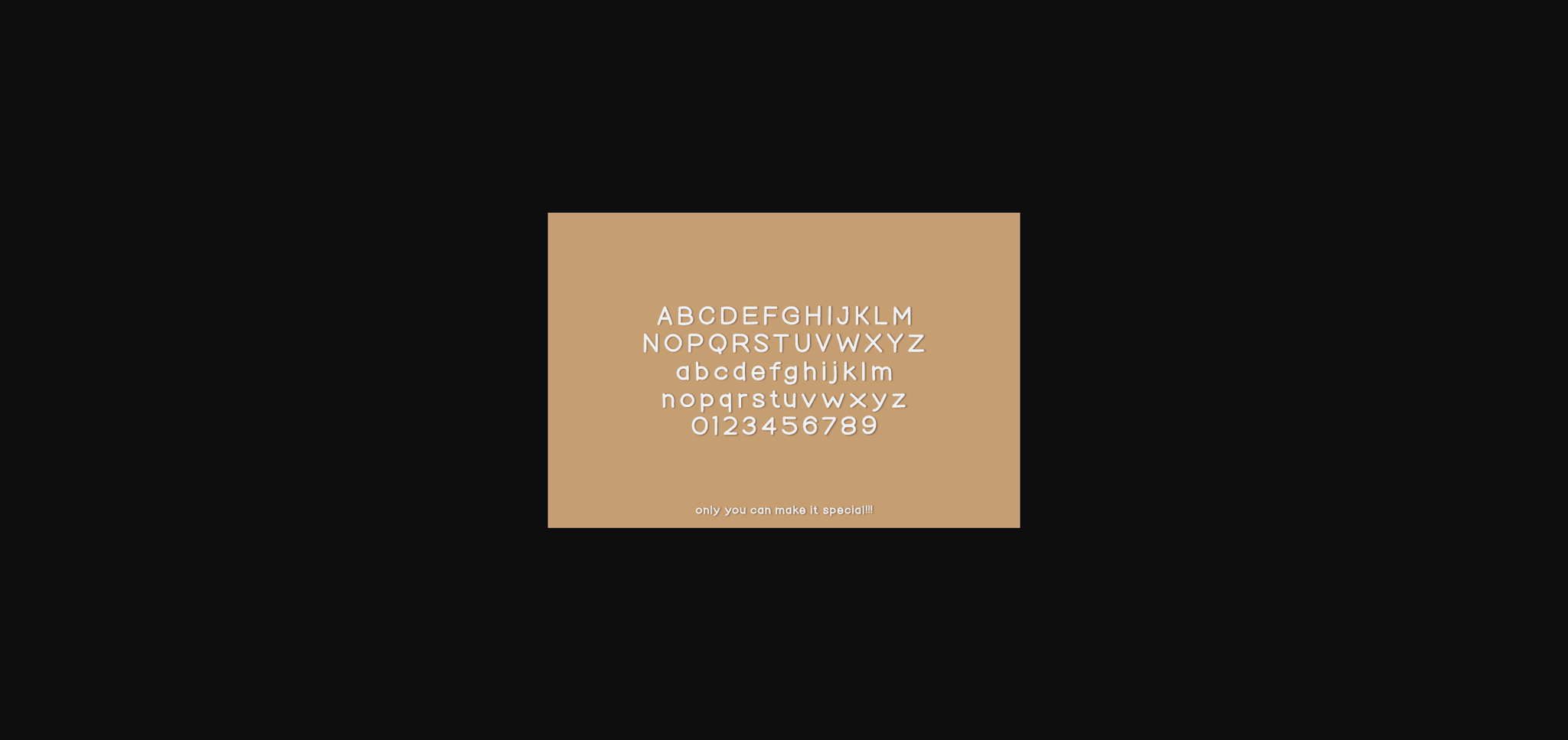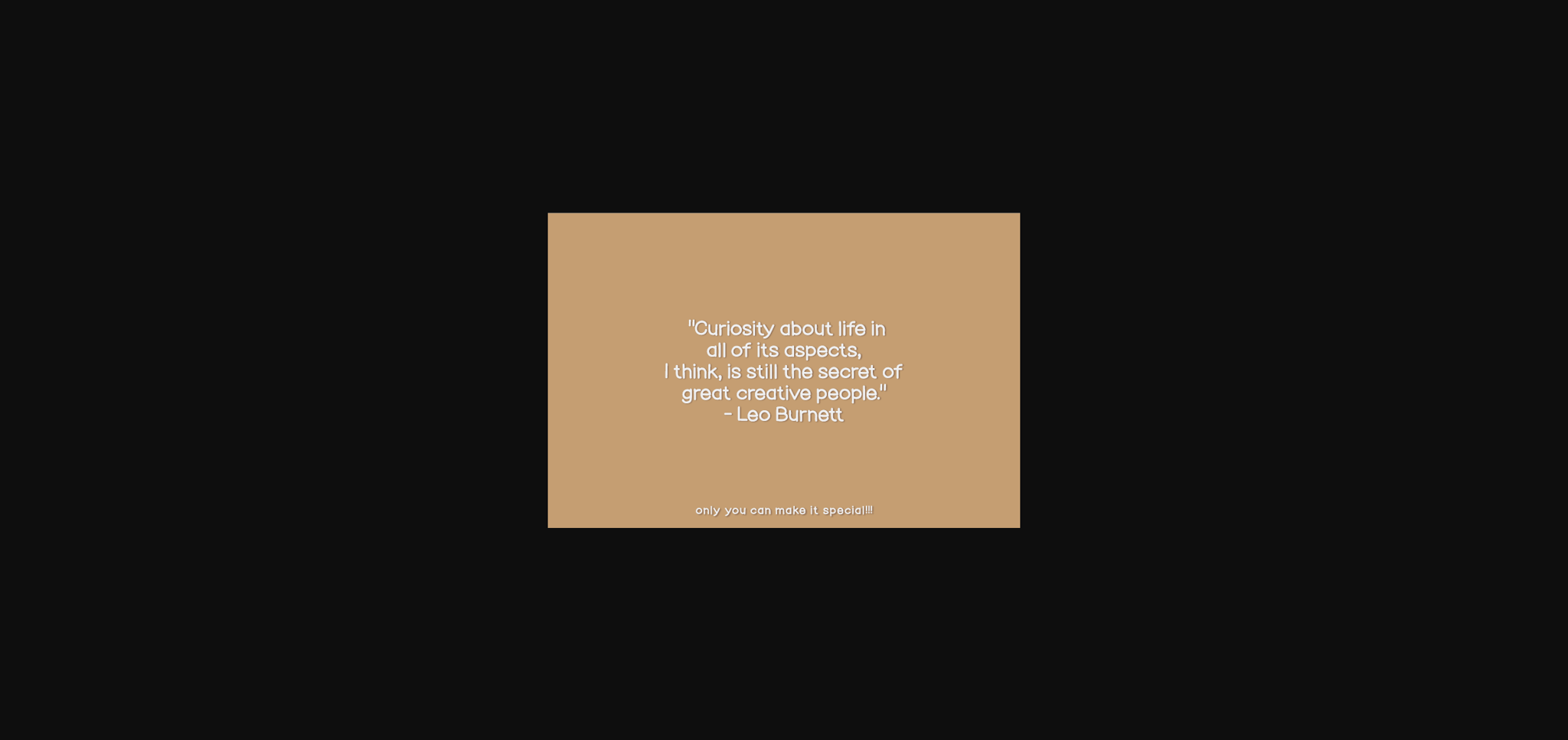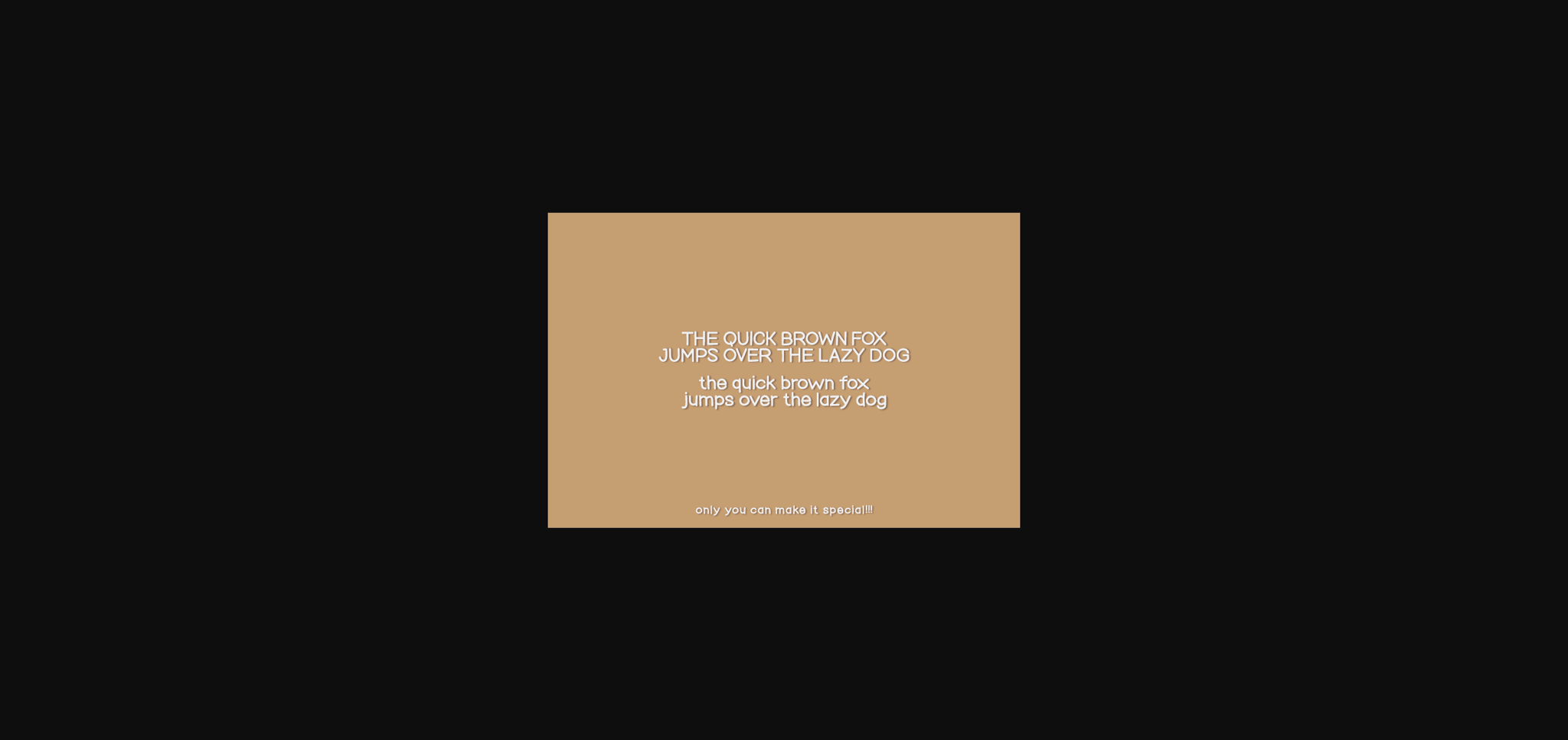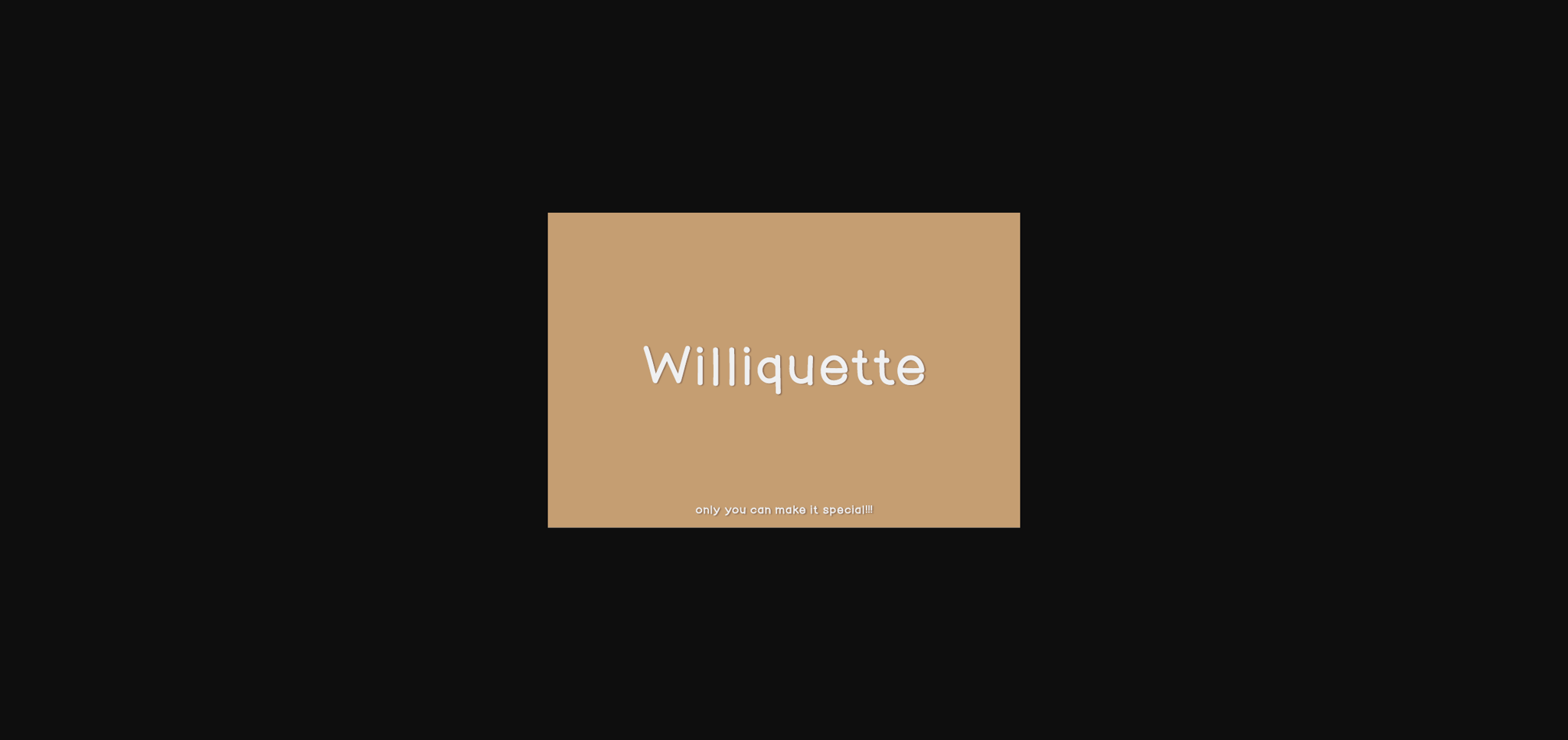
Williquette Font
About Williquette Font
Williquette is a natural sans serif font made without changing a single node in each character’s indentation – this makes this font very interesting and unique. Perfect for quotes, notes, tees, and any product design.